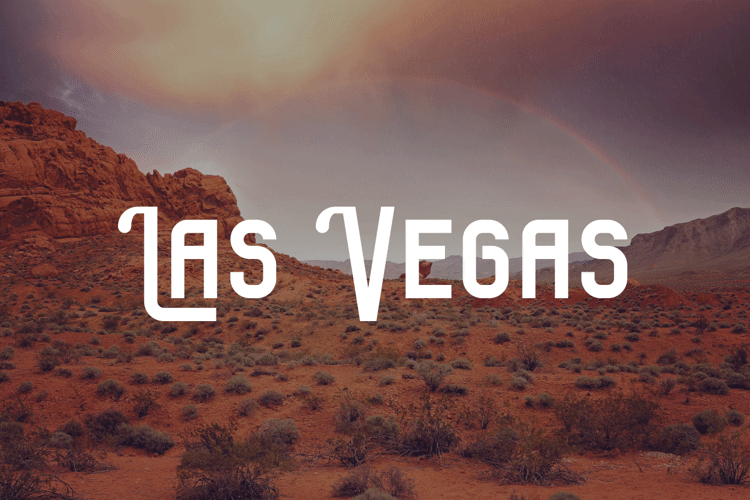
Las Vegas Font
About Las Vegas Font
Las Vegas is a cool, vintage styled and thick lettered display font. No matter the topic, this font will be an incredible asset to your fonts’ library, as it has the potential to elevate any creation.